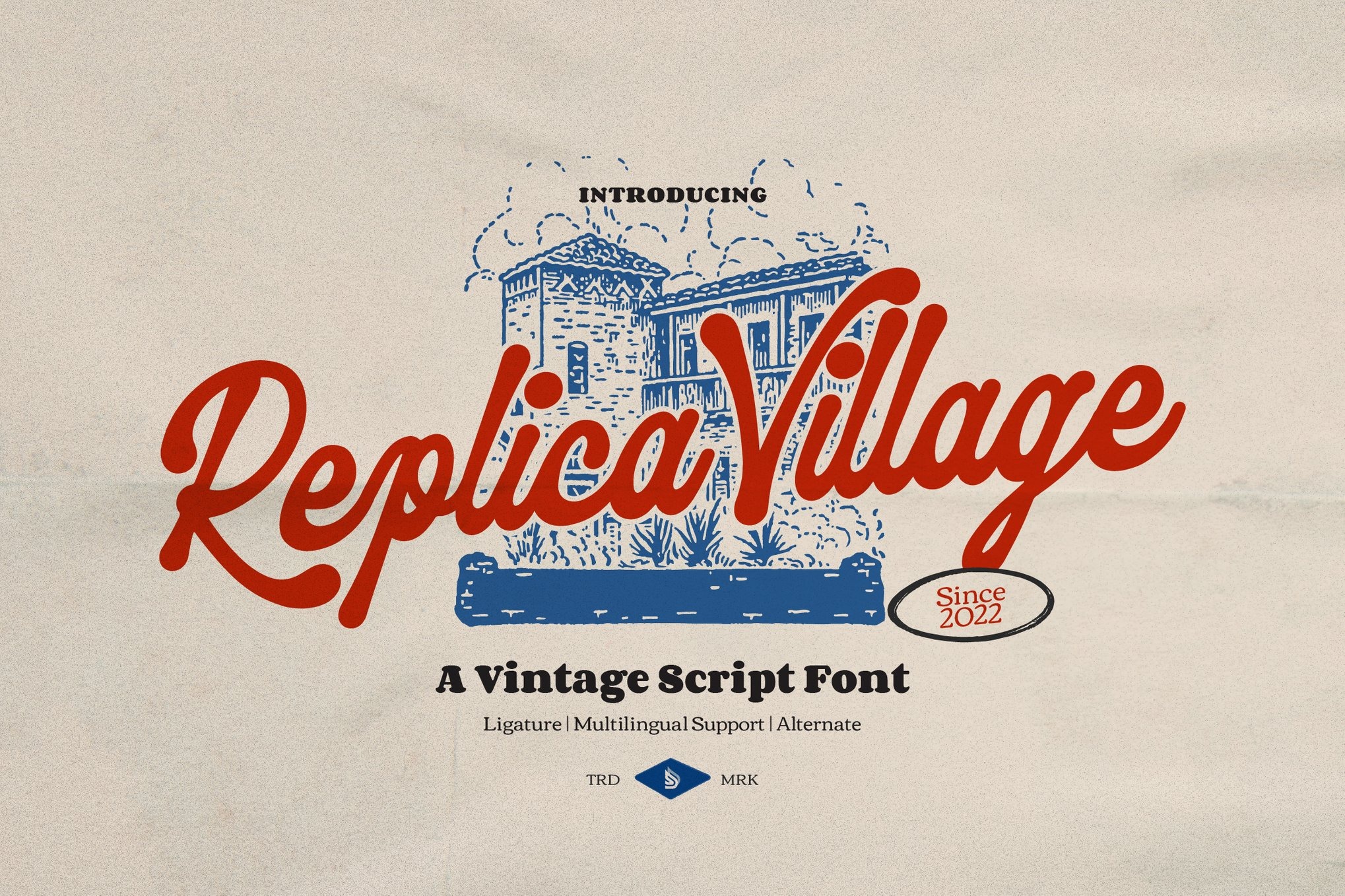
Replica Village – Vintage Script Font
Replica Village – Vintage Script Font is a professionally designed typeface that delivers clarity, structure, and consistent performance across various design applications. The Replica Village font is designed to deliver a strong, versatile visual character, balancing aesthetics and readability. Every detail is carefully crafted to ensure a clear, consistent, and visually appealing result across a wide range of design needs. With well-structured letter proportions and support for features such as alternate characters and ligatures, this font allows for greater creative exploration. The final result is dynamic, distinctive, and professional, making it adaptable to a range of design styles.